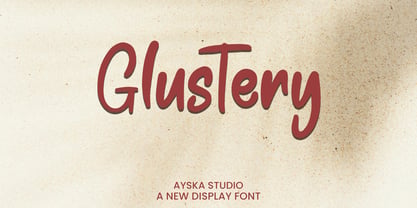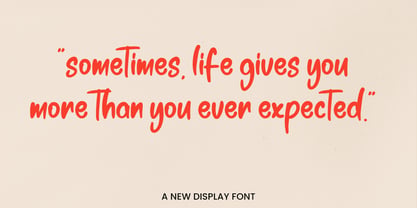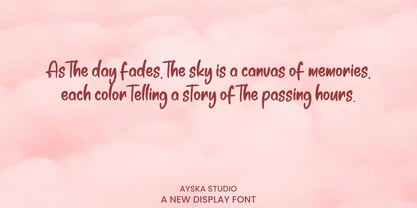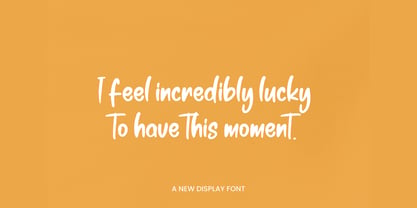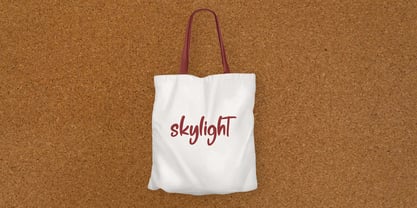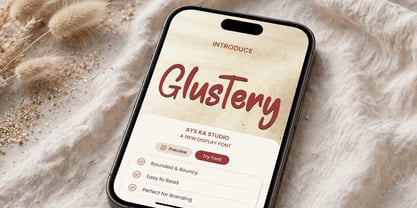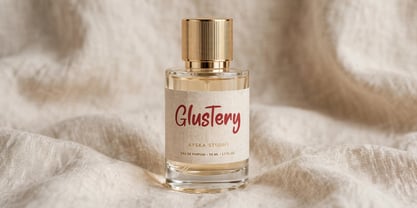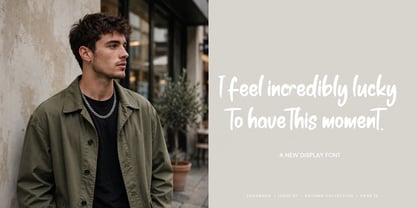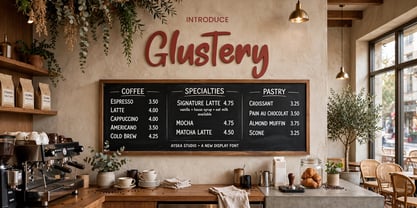
Glustery
by Ayska
The Glustery Font Family was designed by Dhoni Trihatmoko and published by Ayska. Glustery contains 1 styles. More about this family
Glustery font give some variation for your project. Some projects that are suitable for this font include quotes, menus, taglines, flyers / posters, invitations, greeting cards, posters, business cards, clothing, letters, stationery and many others. Glustery is a handwritten font made with brush includes stylistic alternates and ligatures.
Designers: Dhoni Trihatmoko
Foundry: Ayska